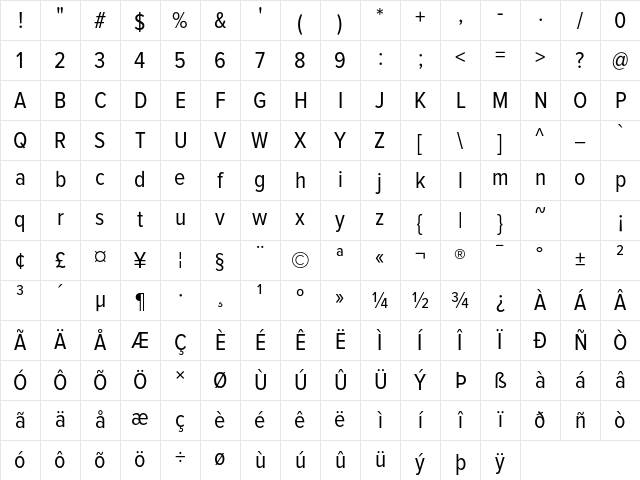
Proxima Nova Condensed Regular
Designer: Mark Simonson
Design Context for Proxima Nova Condensed
Proxima Nova Condensed is a composed and adaptable typeface that performs quietly and consistently across a wide range of design contexts. Its narrow stance lets it pack a punch even in space-constrained designs.
Pro Tip: Use Proxima Nova Condensed in both headline and body roles to test its range before committing to a single application.